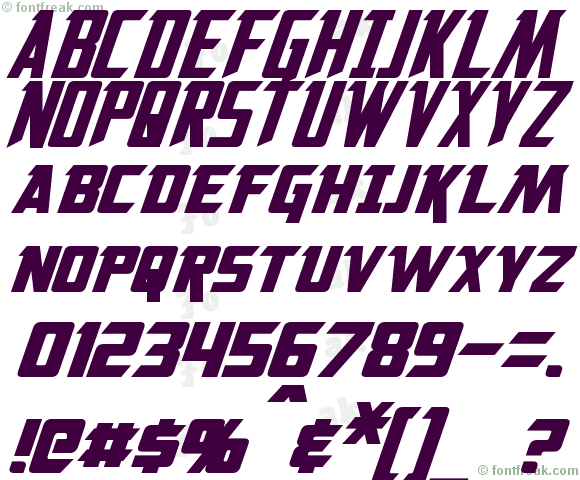
Solitarium Oblique
About Solitarium Oblique
Solitarium Oblique, designed by Neale Davidson in 2011, is a striking display font that falls under the category of sans-serif. This font is characterized by its bold, slanted strokes that convey a sense of dynamism and modernity. The stroke weight is consistent, creating a robust visual presence, while the oblique style introduces an air of sophistication and movement. The spacing between the letters is well-balanced, ensuring readability while maintaining an impactful aesthetic.
This font is ideal for a variety of creative applications. It works exceptionally well for movie posters, where its boldness can capture the viewer's attention and evoke excitement. Additionally, Solitarium Oblique is perfect for branding materials, especially for businesses looking to convey a contemporary and energetic image. Restaurant menus can benefit from its unique style, enhancing the overall dining experience by adding a touch of flair. Furthermore, it can be used effectively in promotional graphics for events or product launches, making any message stand out.
What makes the Solitarium Oblique font truly remarkable is its ability to blend modern design with functionality. This font offers a unique voice that can enhance any project, making it memorable and visually appealing. For those seeking a distinctive typeface that captures attention and conveys a contemporary aesthetic, the Solitarium Oblique font free download is an excellent choice.